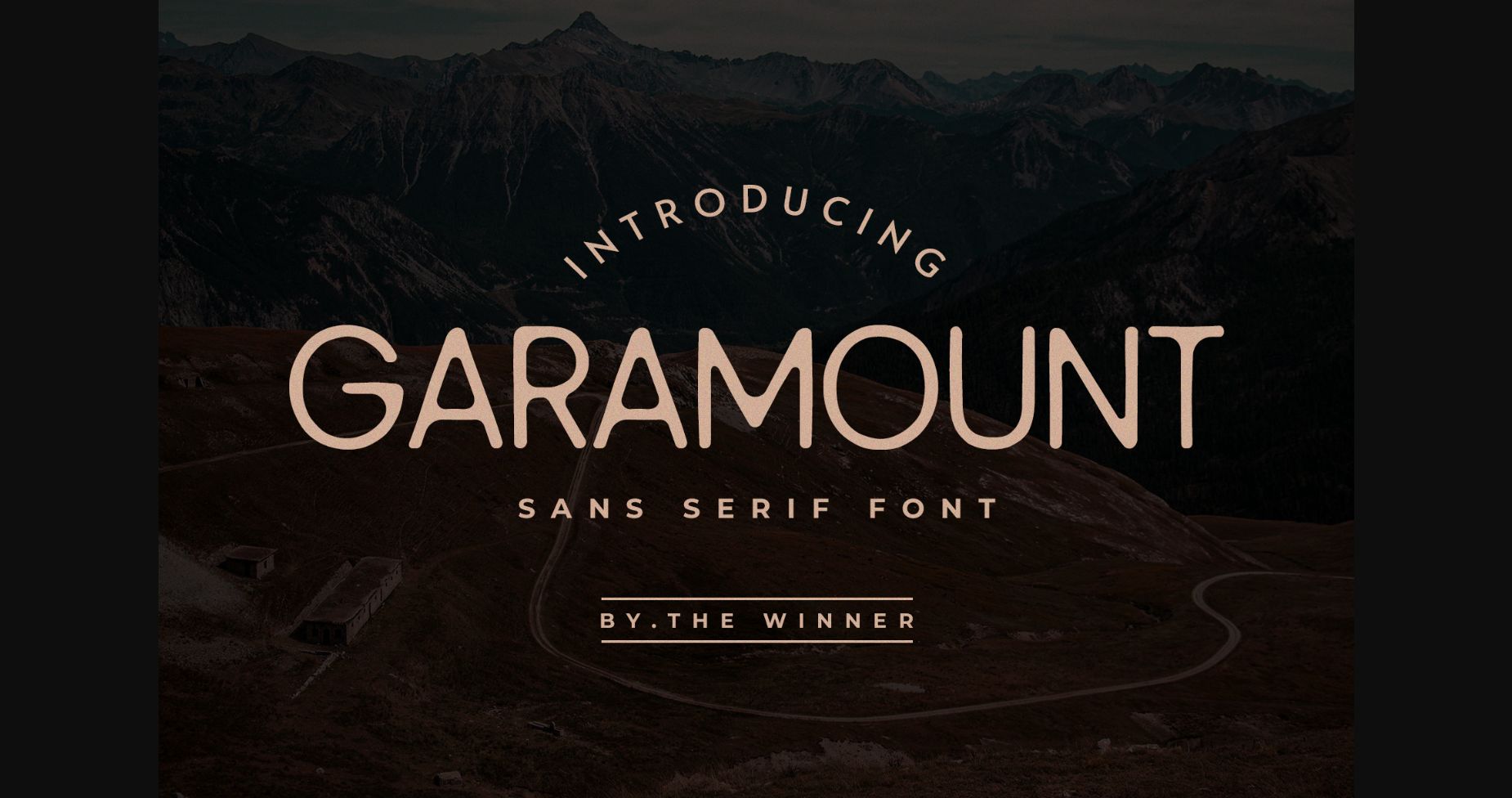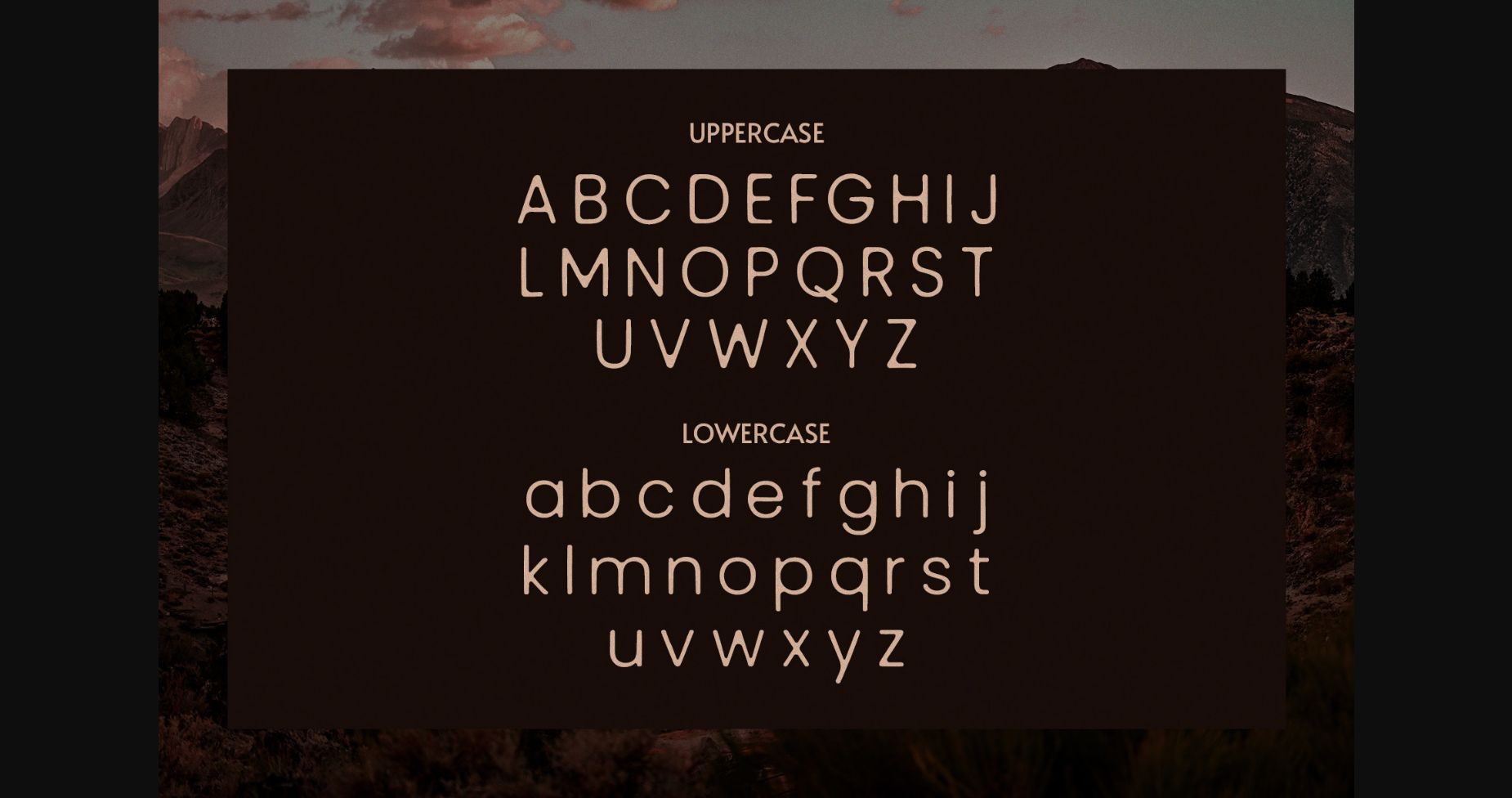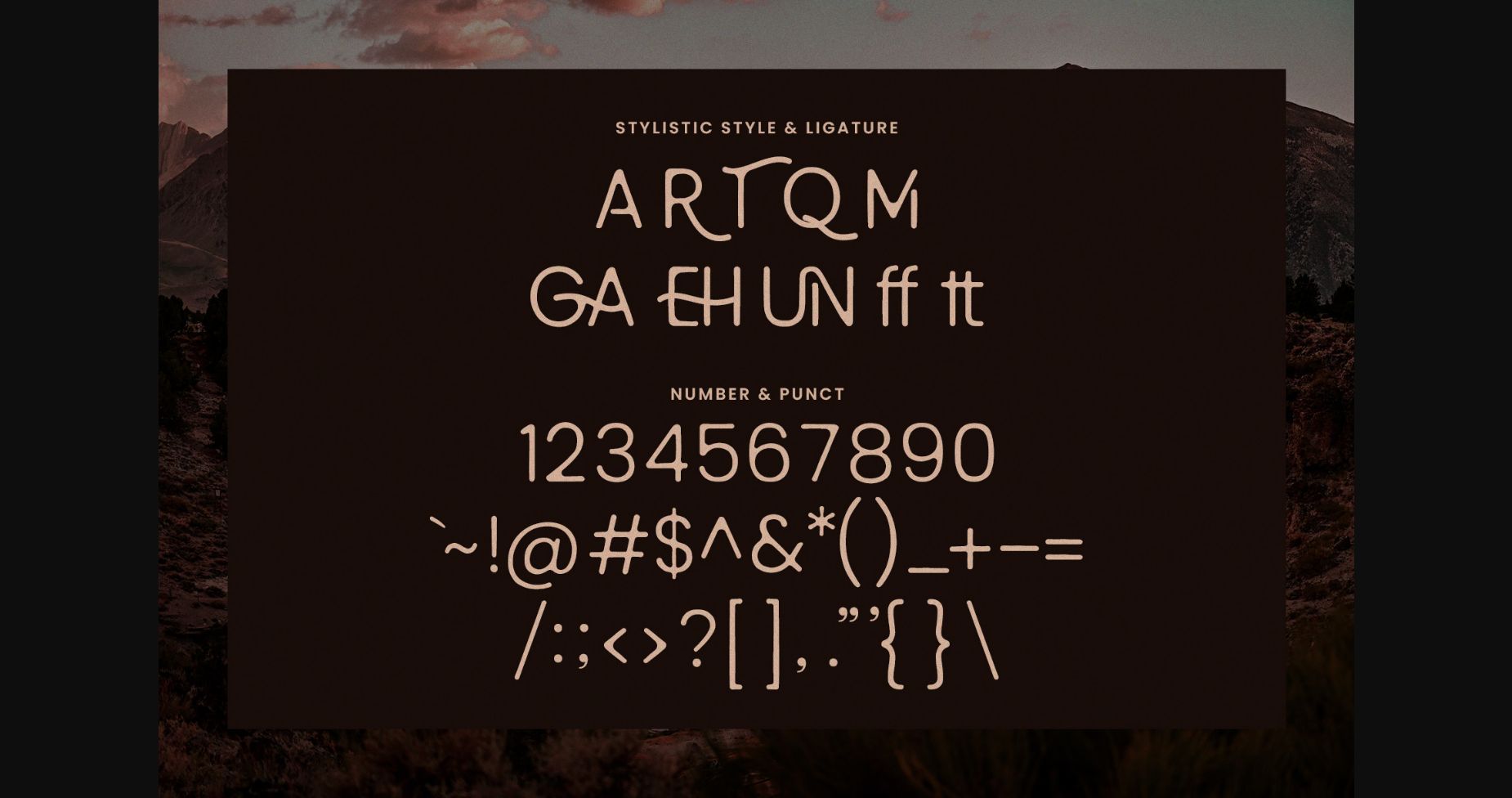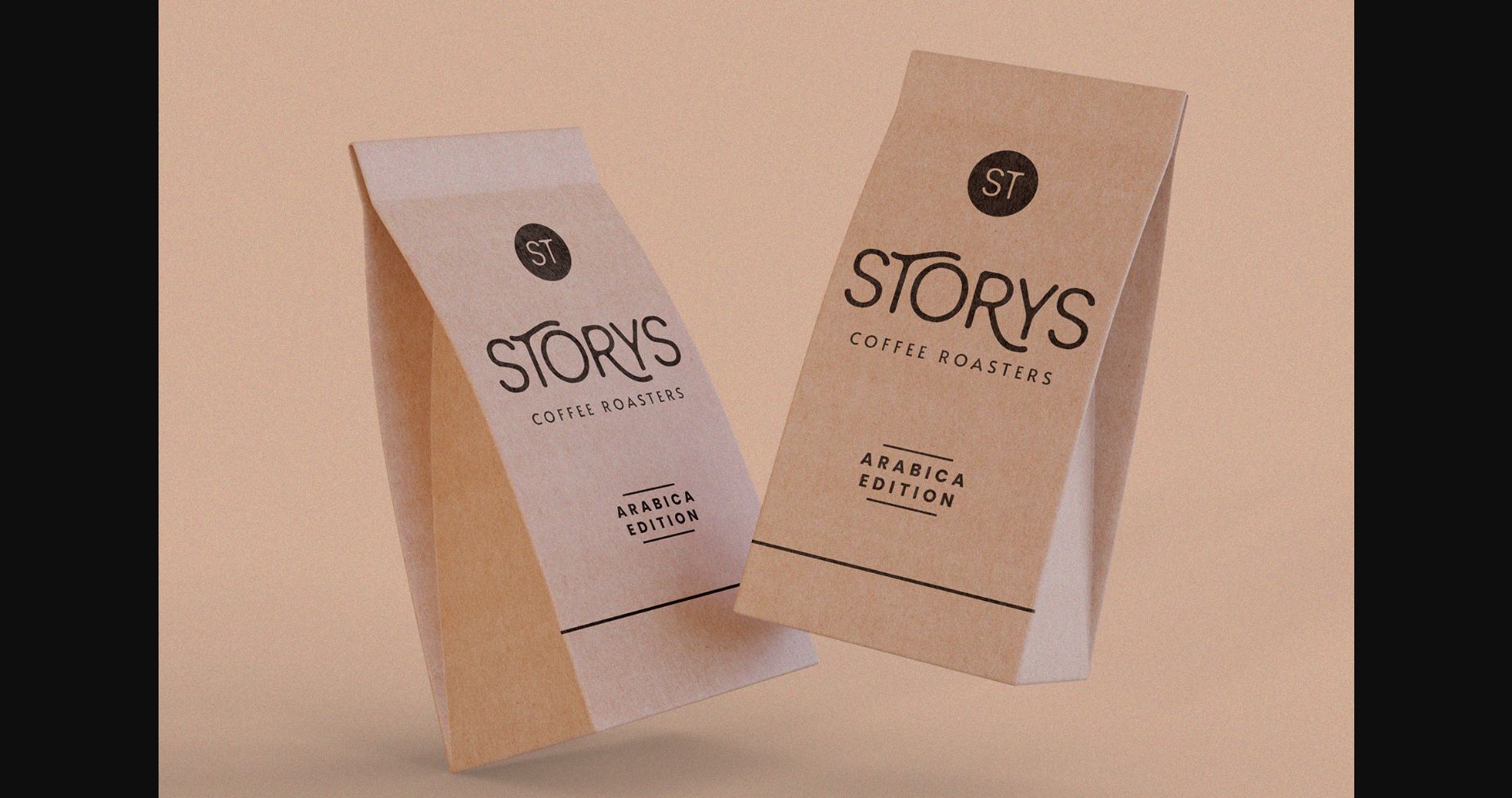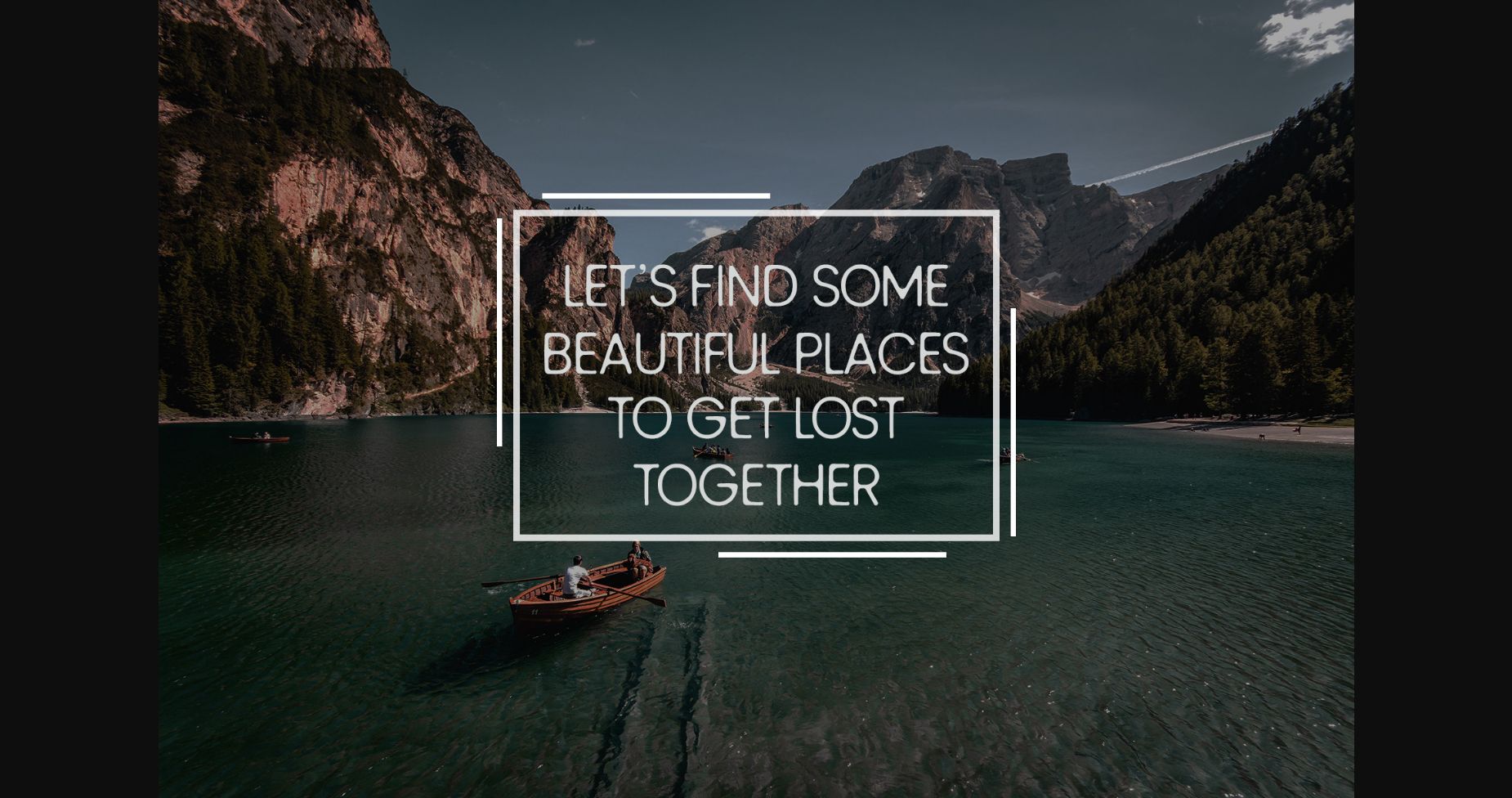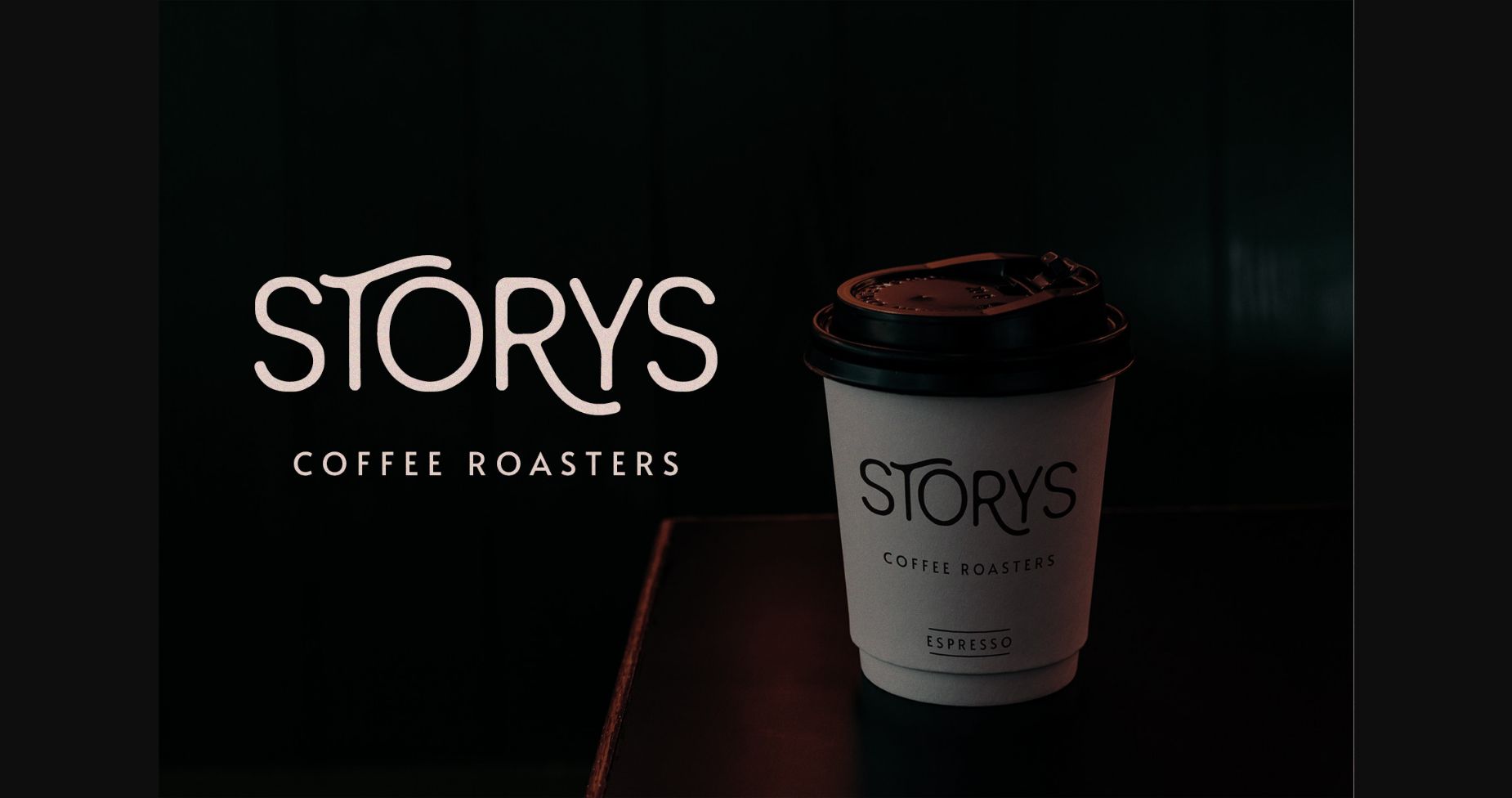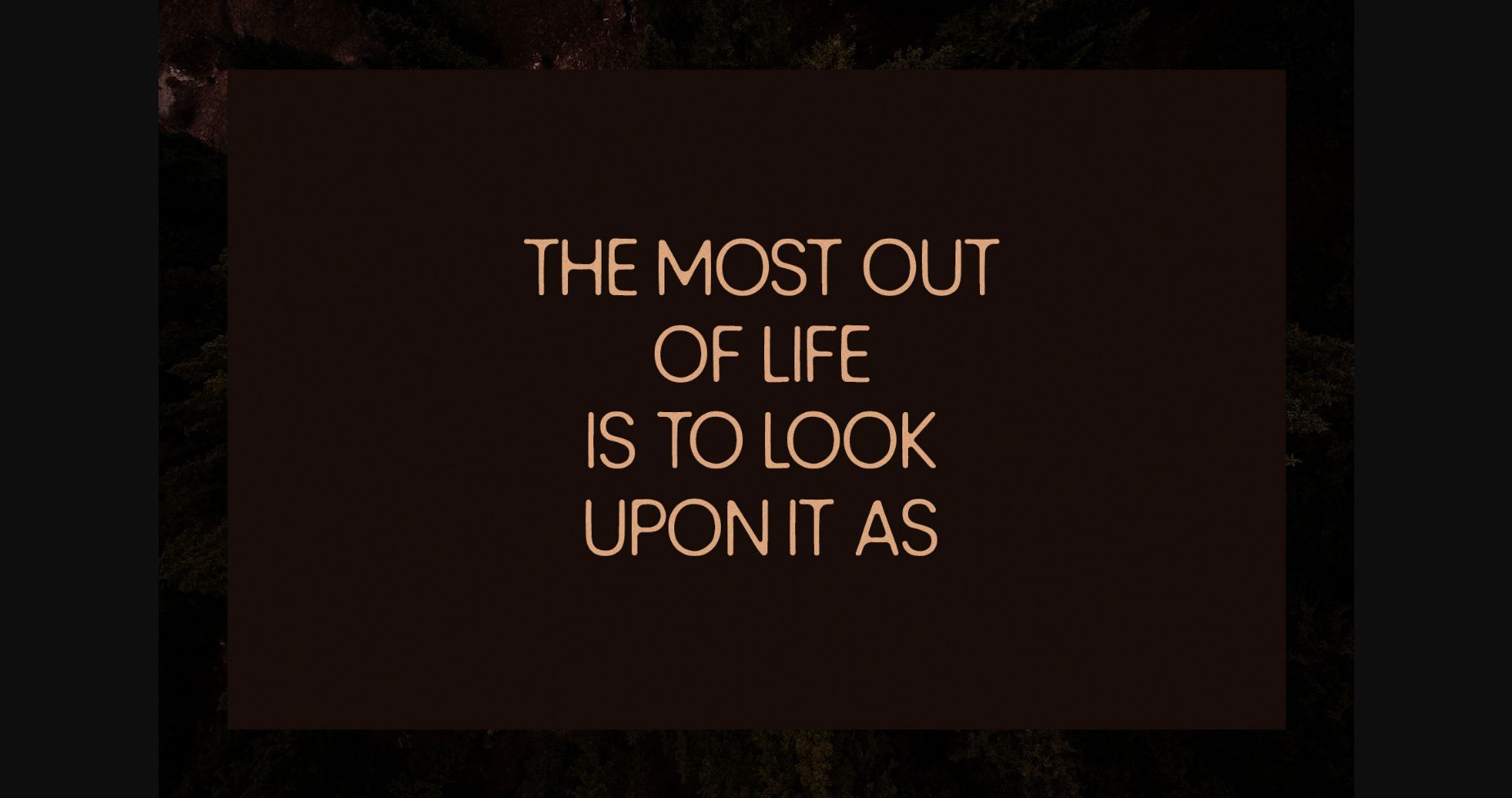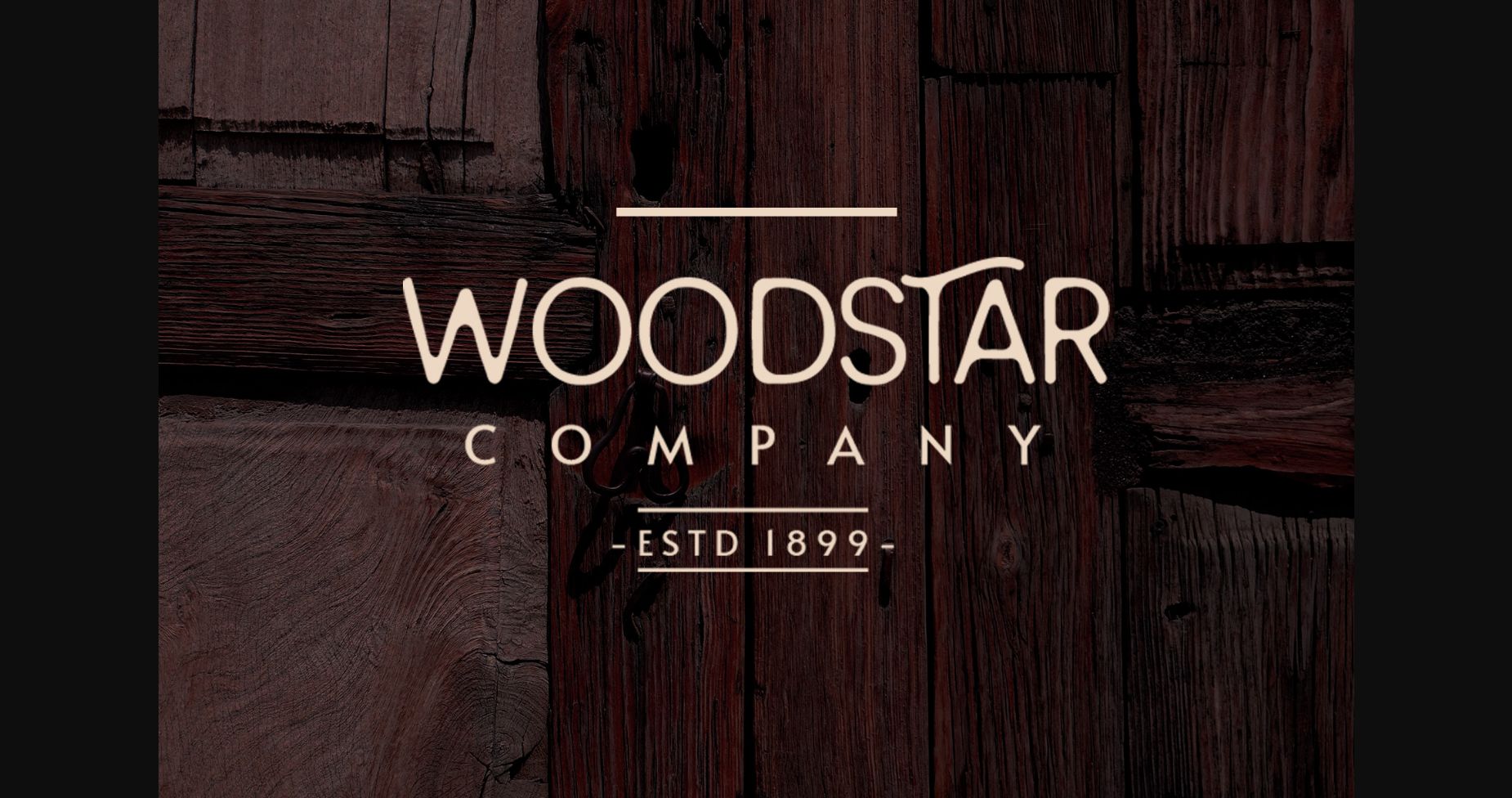
HomeSans Serif FontsGaramount Font Sans Serif Fonts Garamount Font FacebookTwitterPinterestWhatsApp 1 of 11 ... Garamount Font Poster 2... Garamount Font Poster 3... Garamount Font Poster 4... Garamount Font Poster 5... Garamount Font Poster 6... Garamount Font Poster 7... Garamount Font Poster 8... Garamount Font Poster 9... Garamount Font Poster 10... Garamount Font Poster 11... About Garamount Font Garamount is a simple, vintage styled and neat sans serif font. It can easily be matched to an incredibly large set of projects, so add it to your creative ideas and notice how it makes them stand out! DOWNLOAD NOW 110 0 People also explored Zinger Black History Font Wonderland Font Penguin Blush Font Christy Smiley Font Samelro Font Wildaloney Font Love Story Font Matryk Stencil Font Anything Font Joking Font Lilly Boo Font TagsGaramount Font Previous articleJayantaka FontNext articleRoushel Font LEAVE A REPLY Cancel reply Comment: Please enter your comment! Name:* Please enter your name here Email:* You have entered an incorrect email address! Please enter your email address here Website: Save my name, email, and website in this browser for the next time I comment. Unlock Endless Creativity with the FREE September Clipart Huge Bundle (Valued at $700!) Personal Use Free Concre Personal Use Free Read more Propaganda Personal Use Free Read more Hashira Mt Personal Use Free Read more Hysteria Santa Personal Use Free Read more BLOG Free Fonts Risk: Why Free Fonts Can Be Dangerous for Designers Free Fonts Risk: Why Free Fonts Can Be Dangerous for Designers Using free fonts is a common practice in web and graphic design. However, the... To increase your work productivity, choose the most readable fonts. Using Fonts in Digital Marketing: Tips to Strengthen Your Brand Identity Where to Buy American Fonts Online in 2024